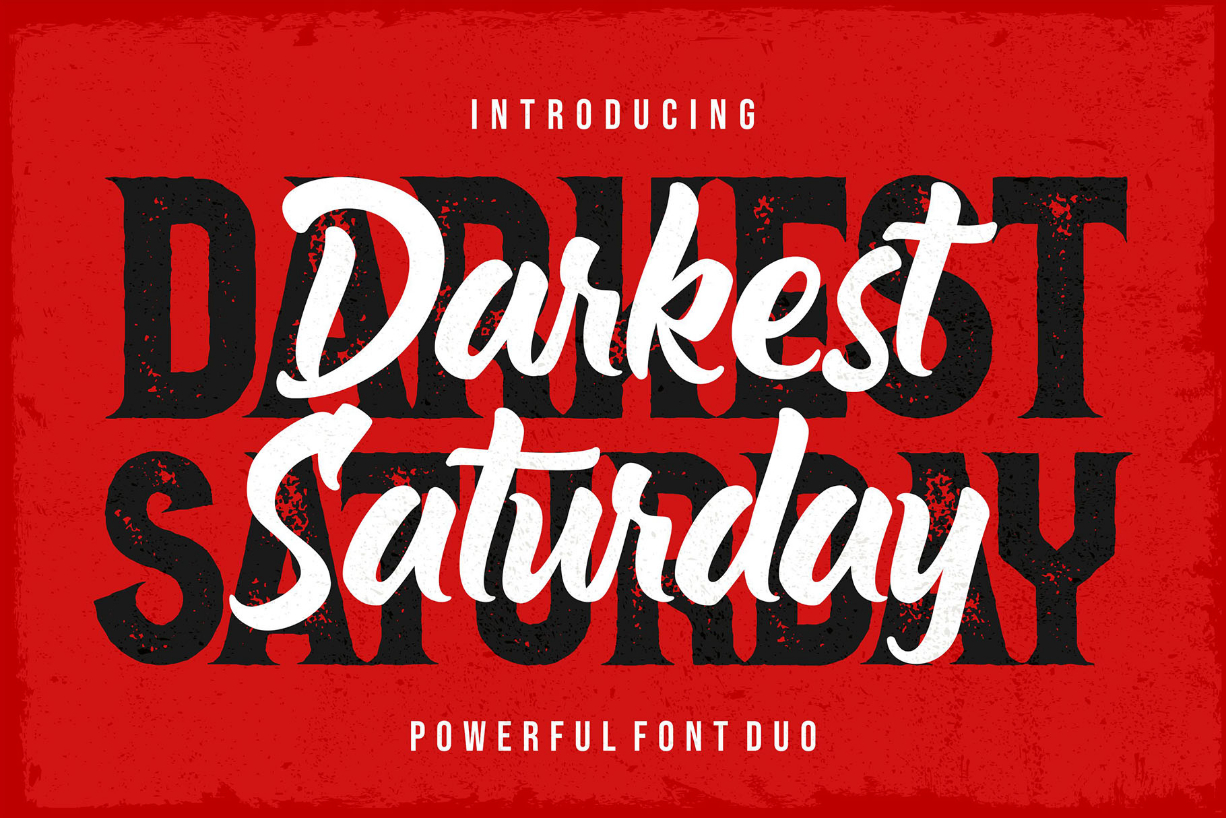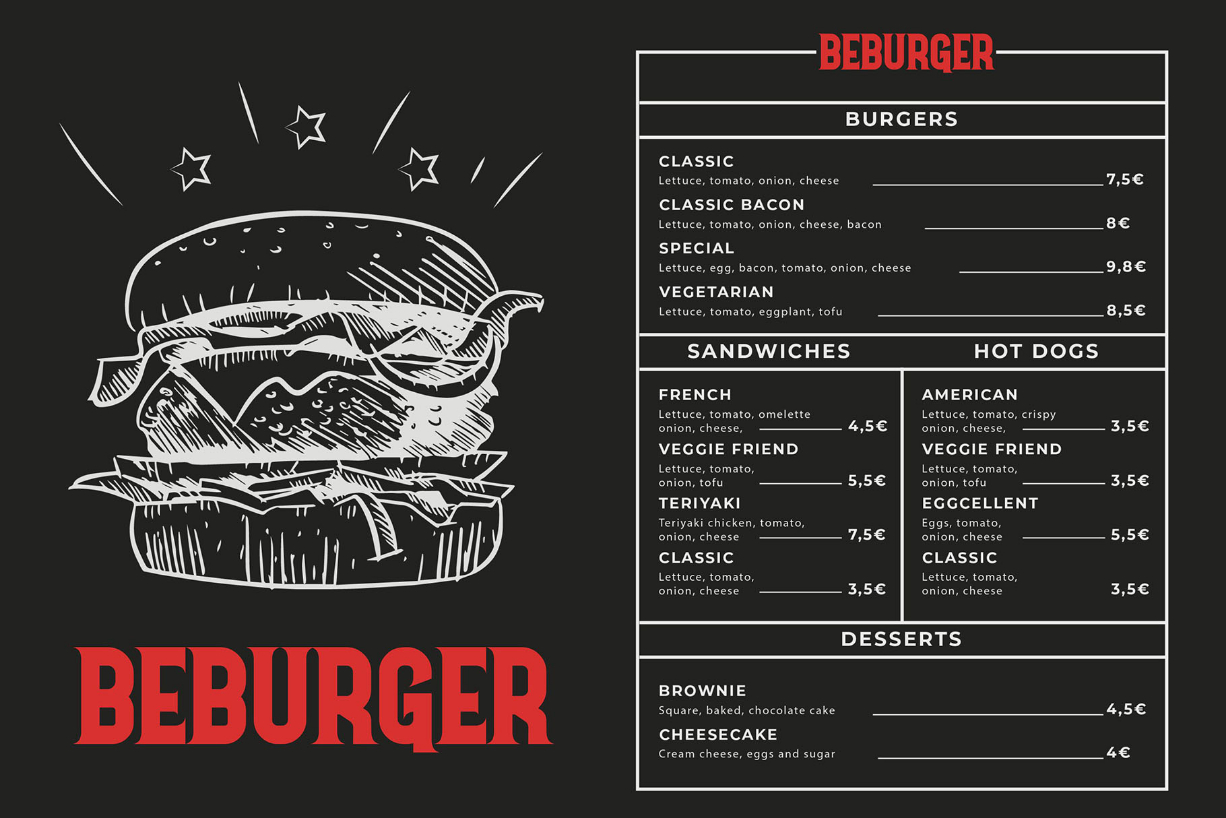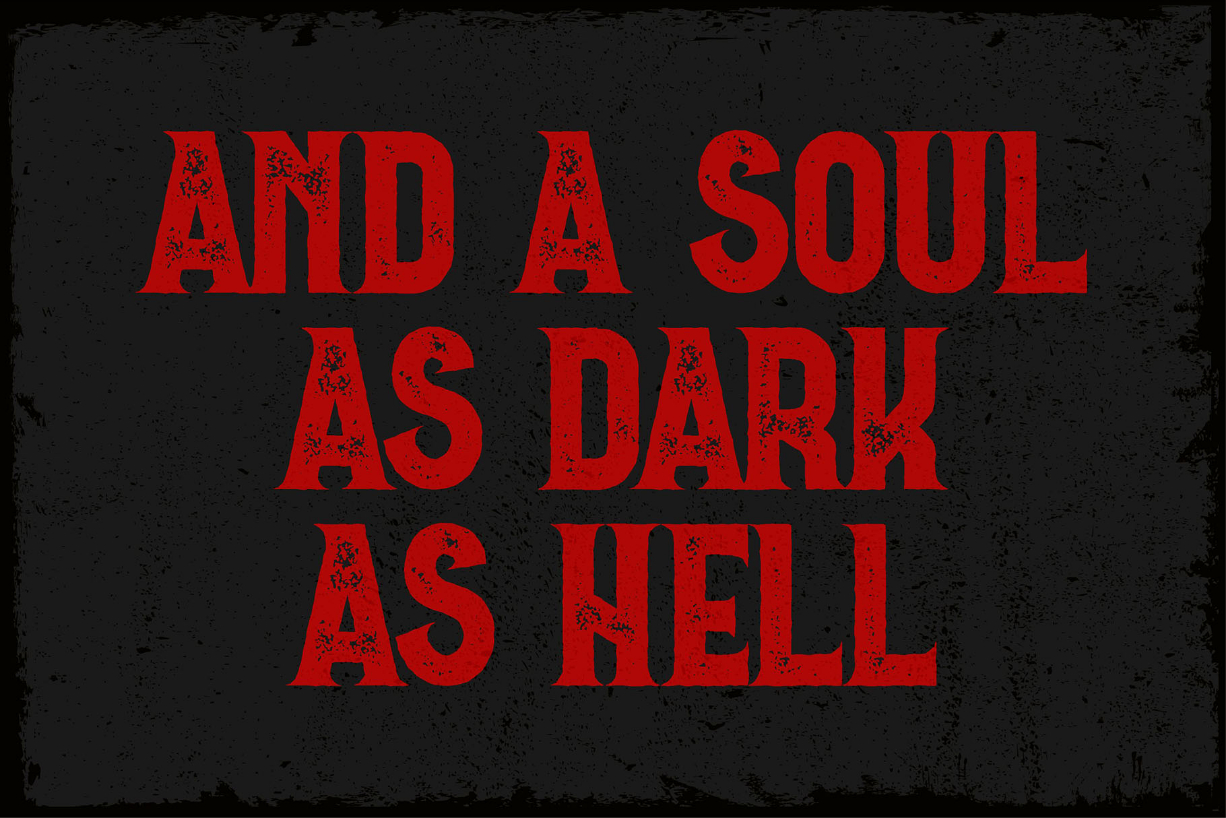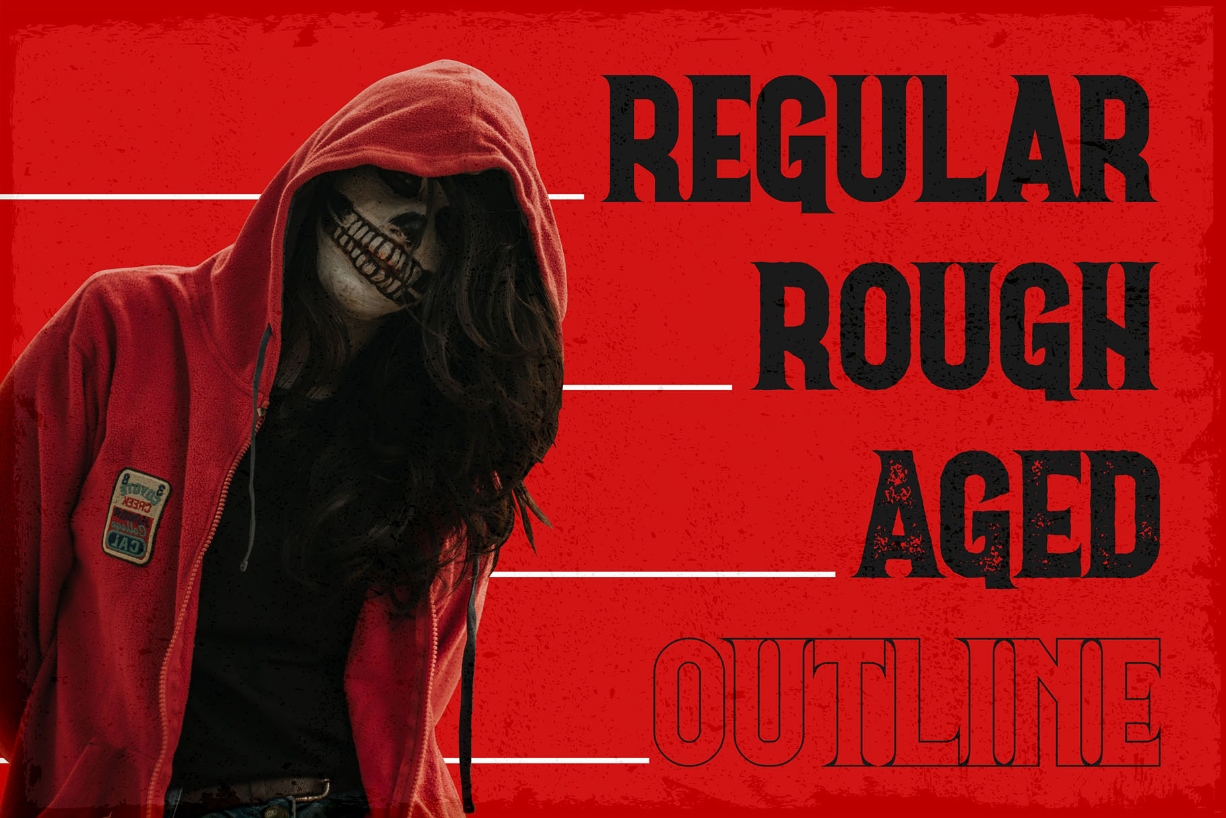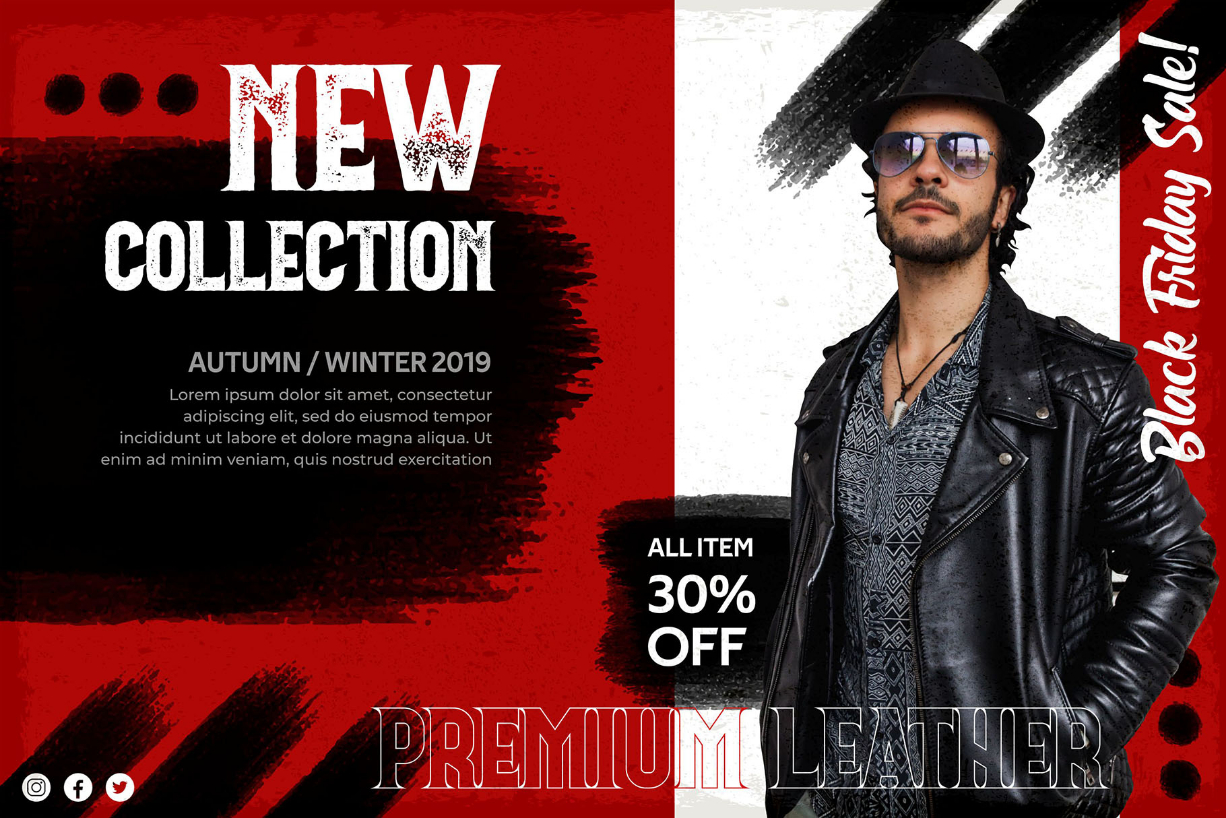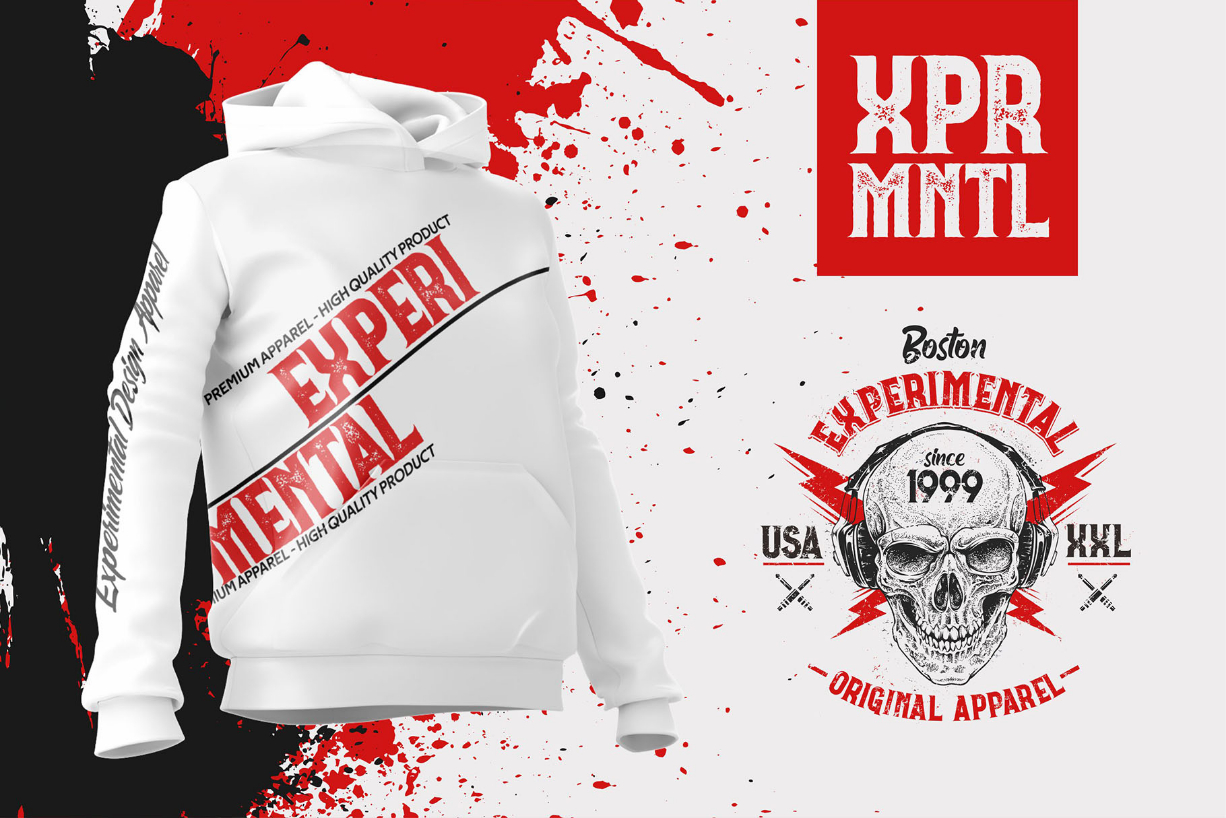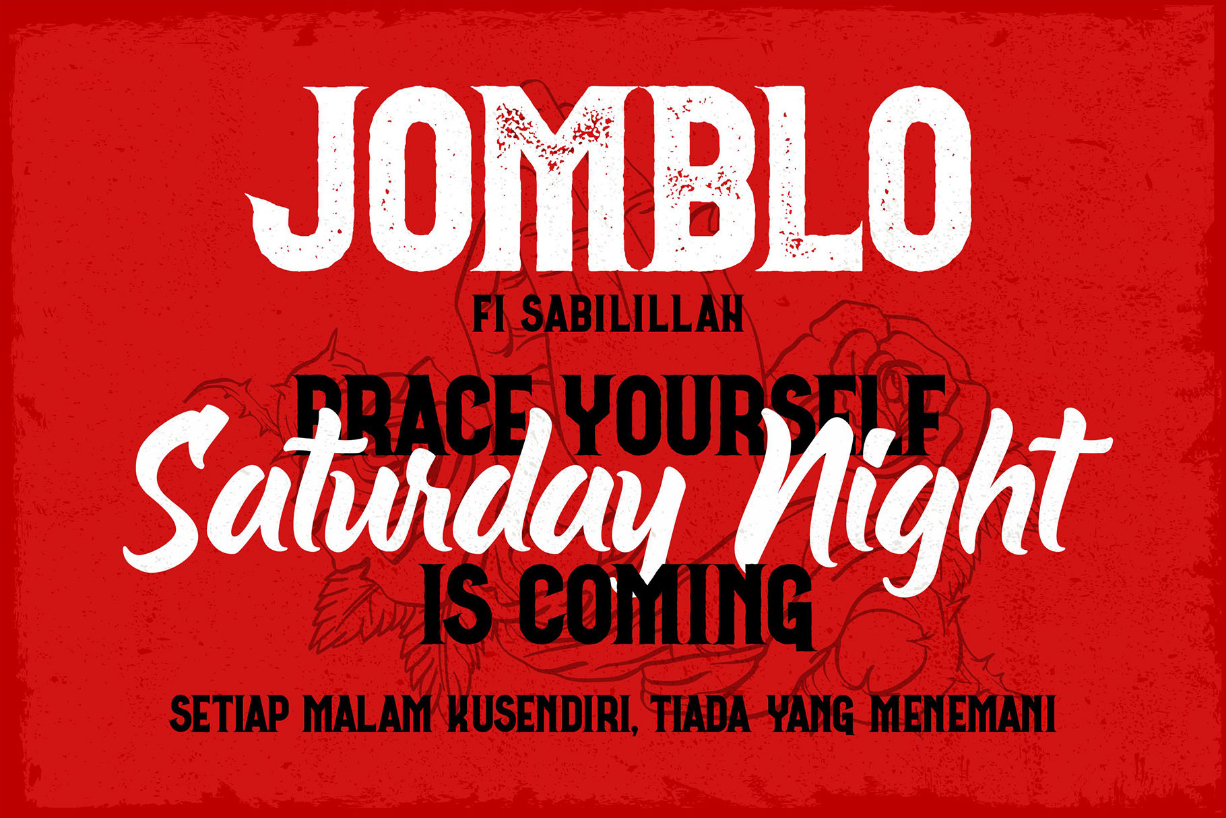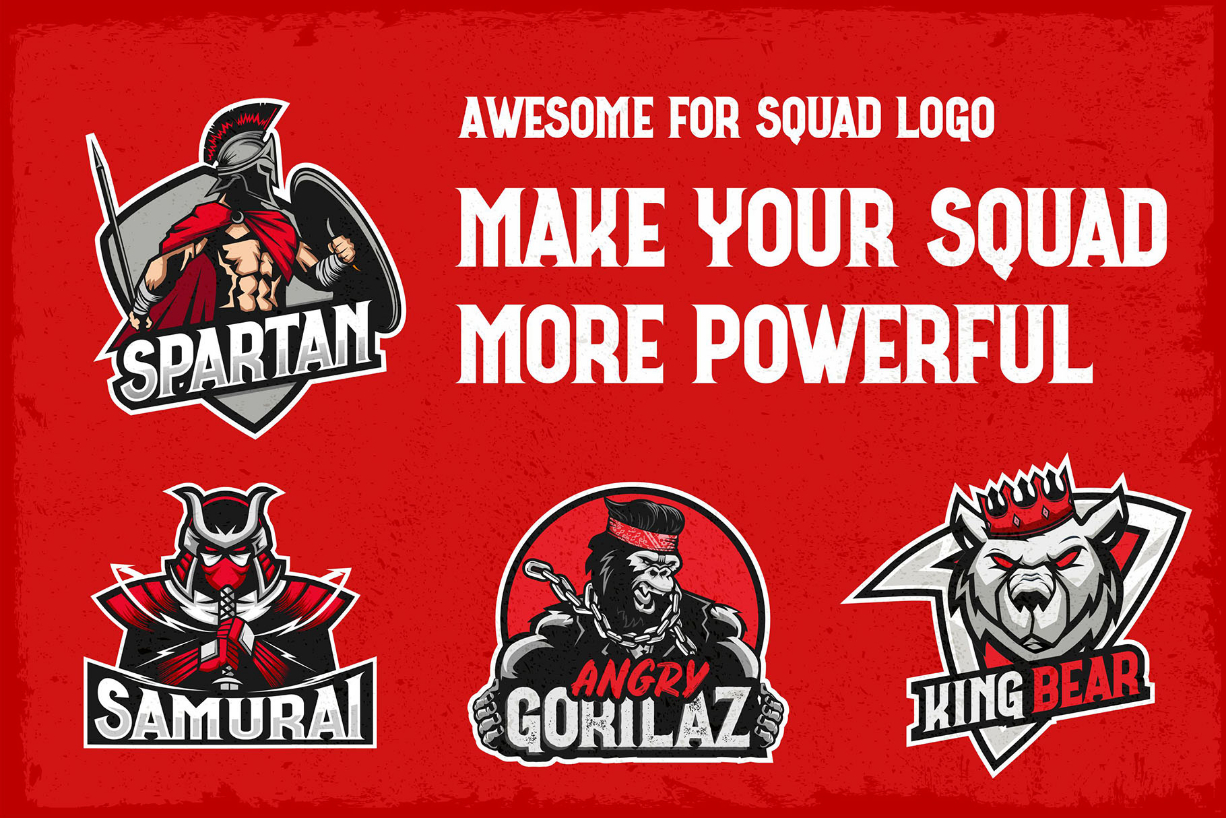
Darkest Saturday Duo Font
About Darkest Saturday Duo Font
This stunning and serious Font Duo is inspired by a blend of vintage style with a touch of rawness.